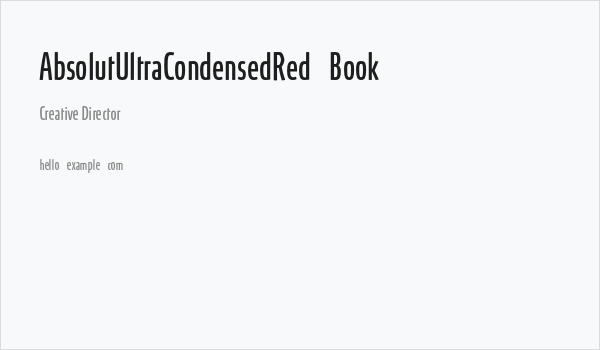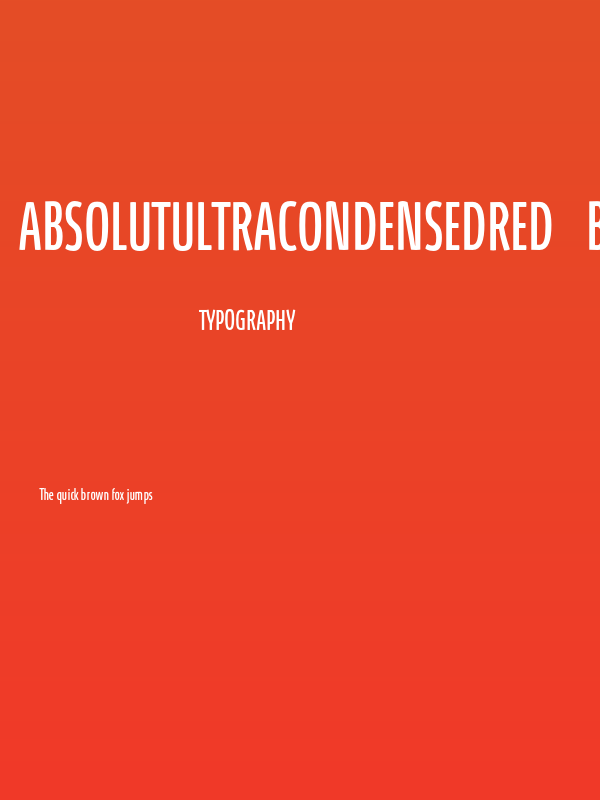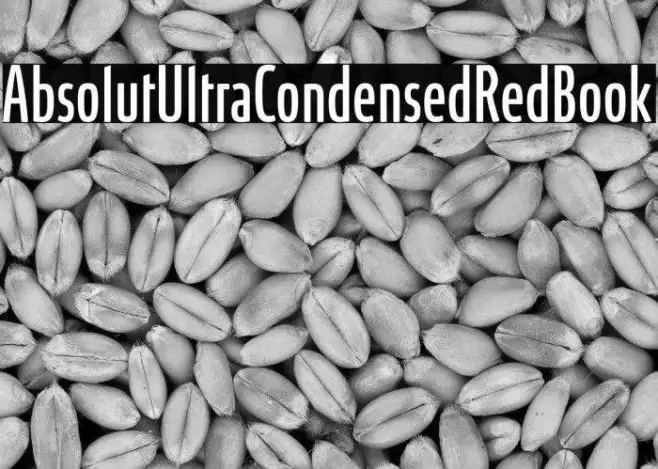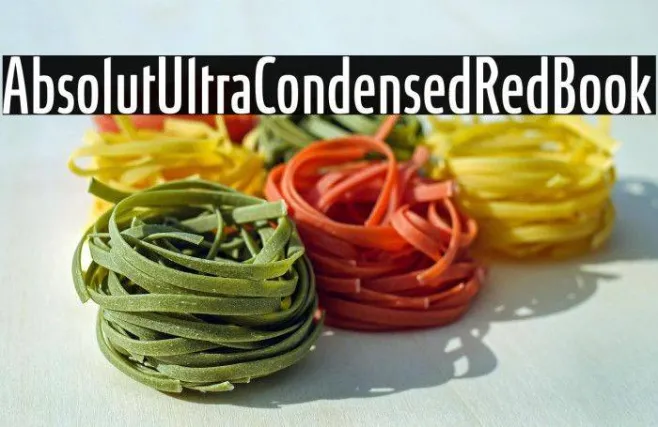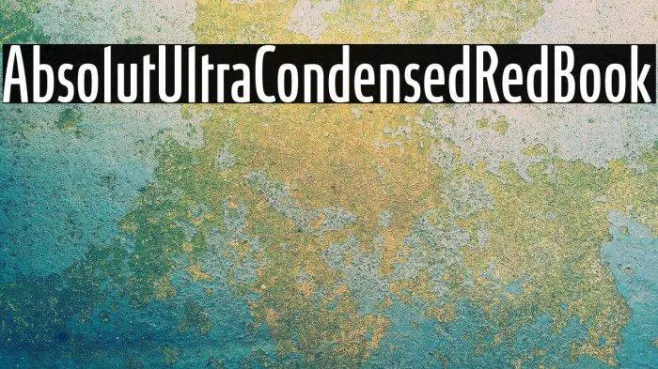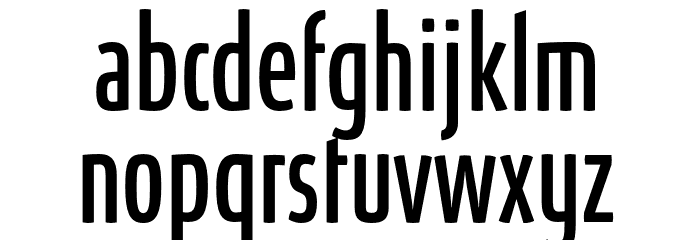
AbsolutUltraCondensedRed-Book Font
AbsolutUltraCondensedRed-Book Description
This font features a highly condensed sans-serif style, characterized by its tall and narrow letterforms. The strokes are consistent in width, giving it a uniform appearance. The uppercase letters are bold and assertive, while the lowercase letters maintain a similar height, enhancing readability. The design is modern and sleek, making it suitable for contemporary projects. The spacing between characters is tight, which contributes to its compact look. This font is ideal for use in headlines, posters, and branding where space is limited but impact is needed.
| Proposed Projects | Ideal for headlines, posters, branding, and any design requiring a modern, space-efficient typeface. |